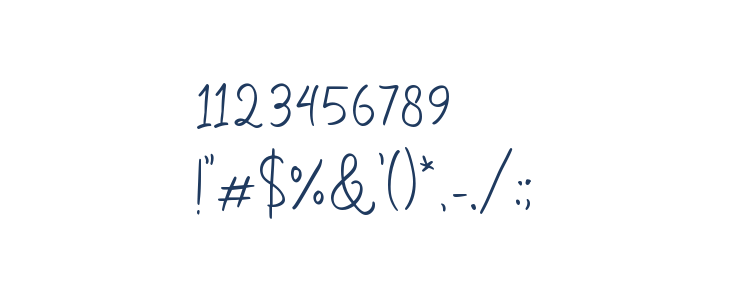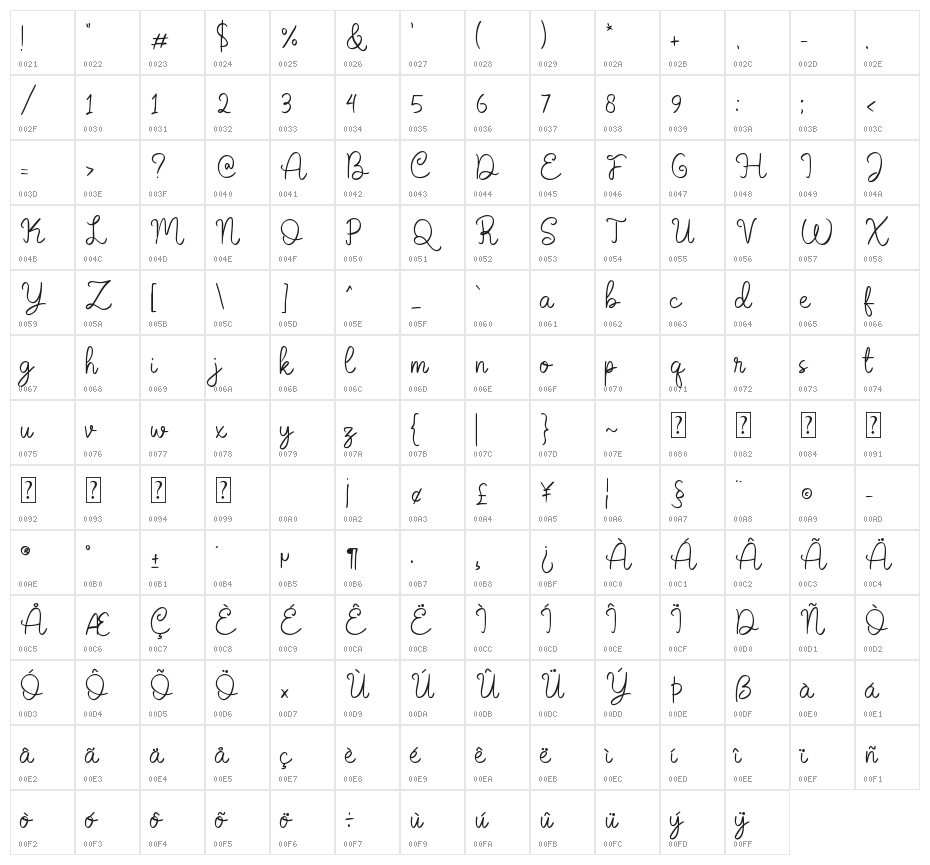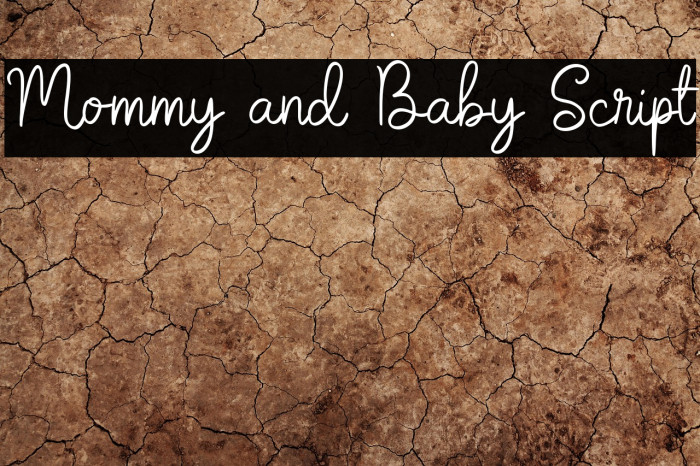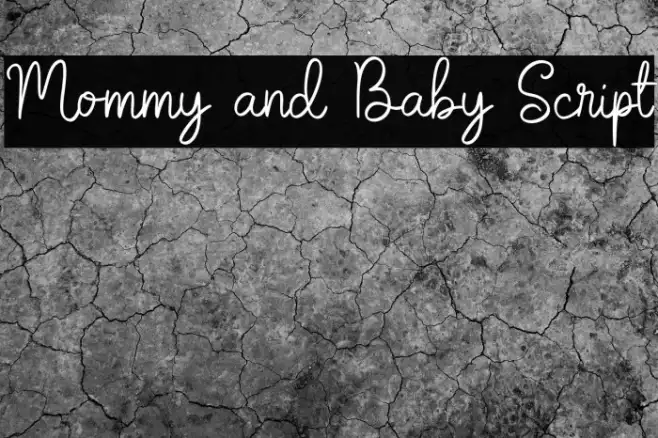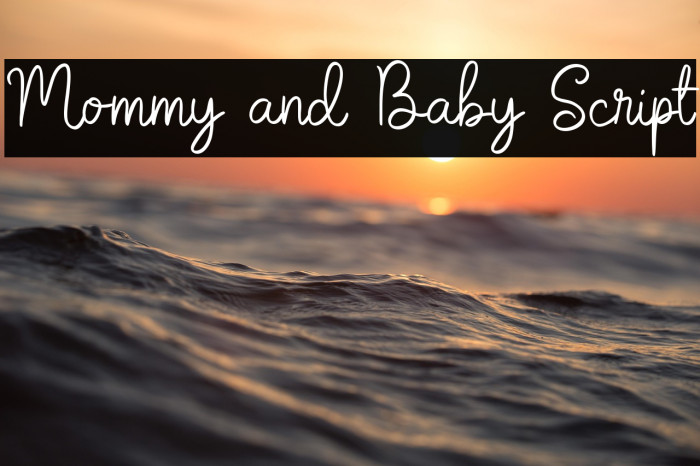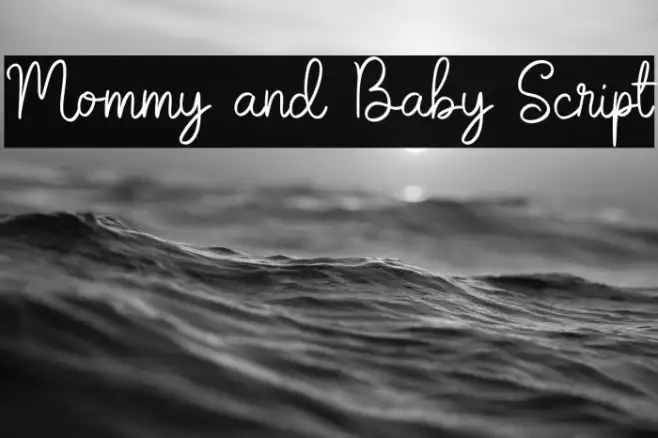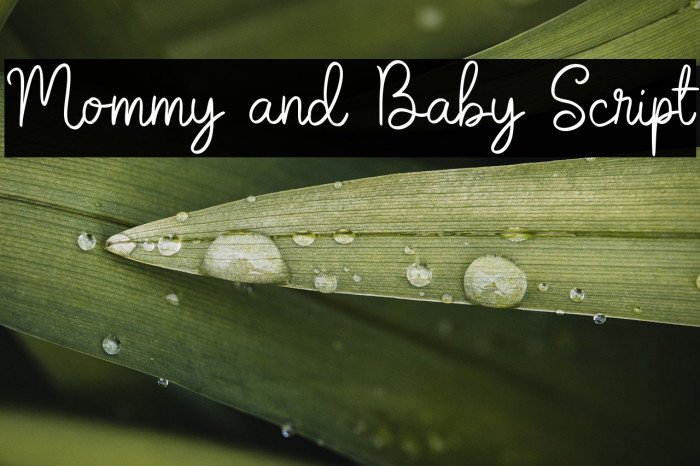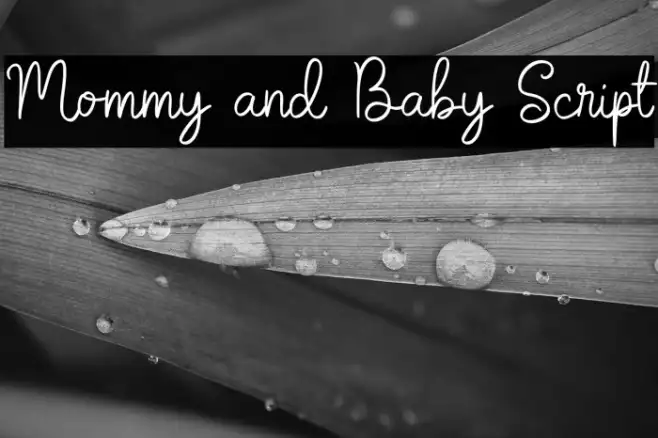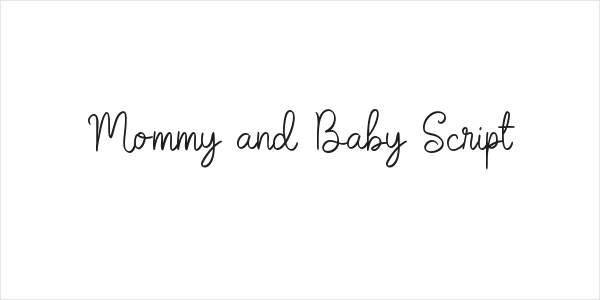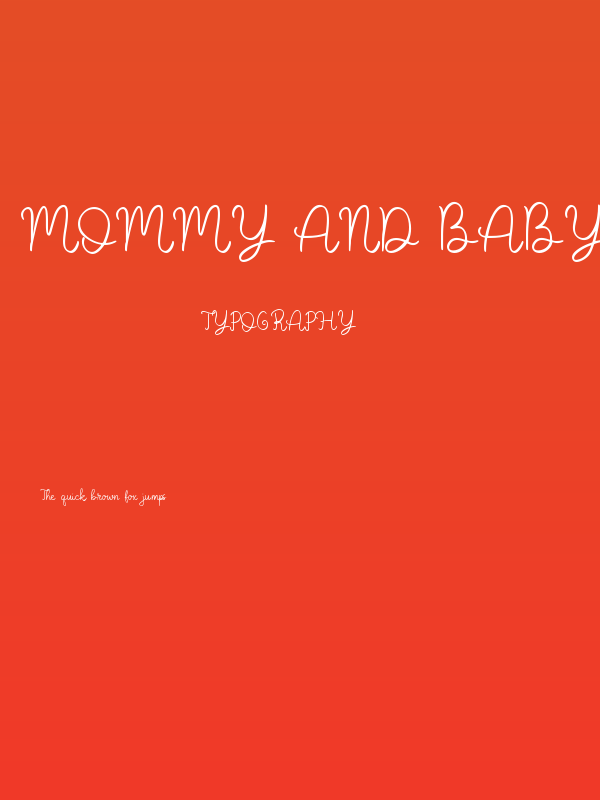
Mommy and Baby Script Font
Mommy and Baby Script Description
This font features a playful and elegant script style, characterized by its smooth, flowing lines and a handwritten appearance. The uppercase letters are slightly more structured, maintaining a consistent height, while the lowercase letters exhibit a charming, cursive flair with loops and swirls. The numerals are clear and legible, complementing the overall style. Special characters are designed with the same fluidity, ensuring a cohesive look across all glyphs. This font exudes a sense of warmth and friendliness, making it ideal for projects that require a personal touch.